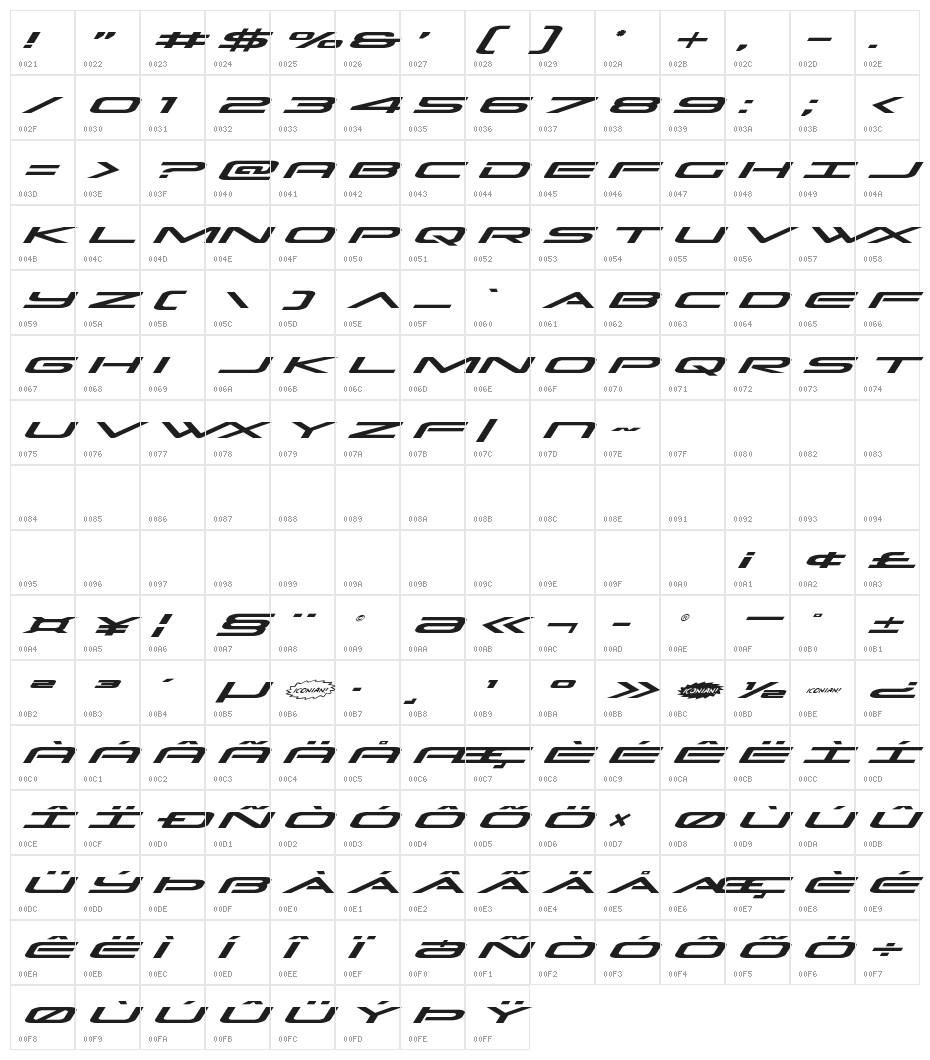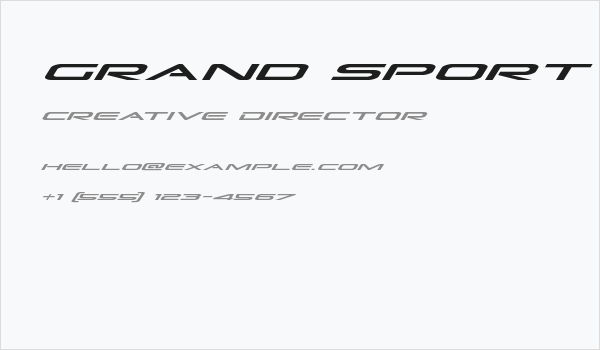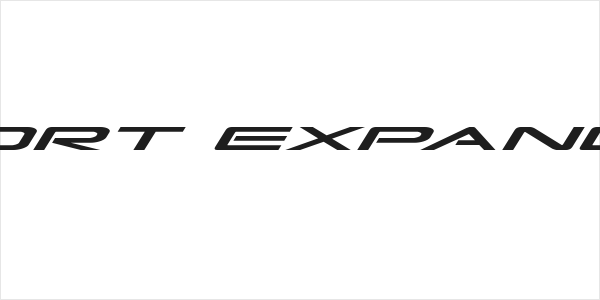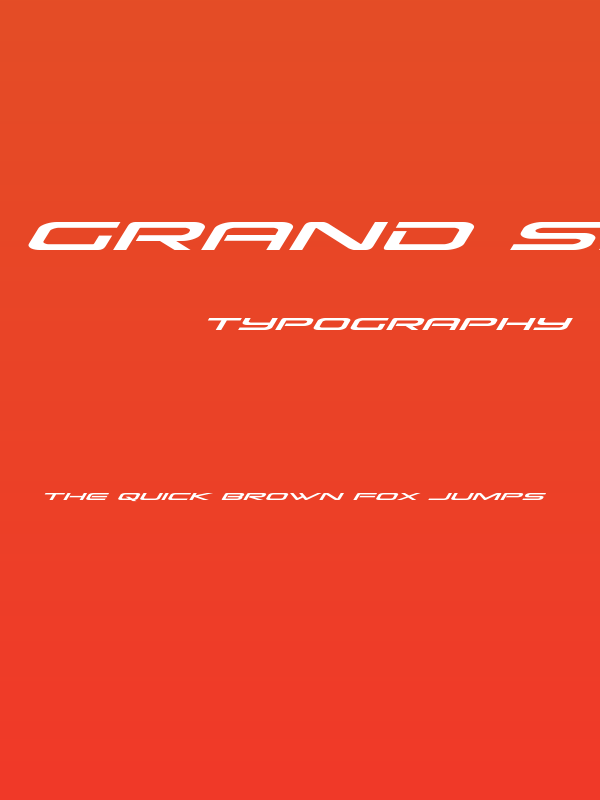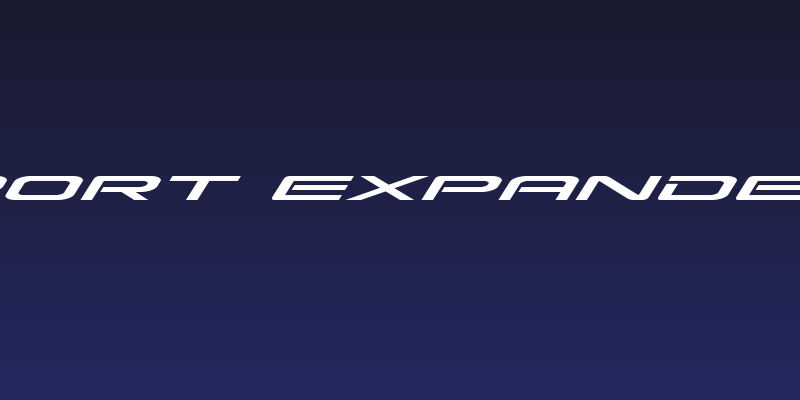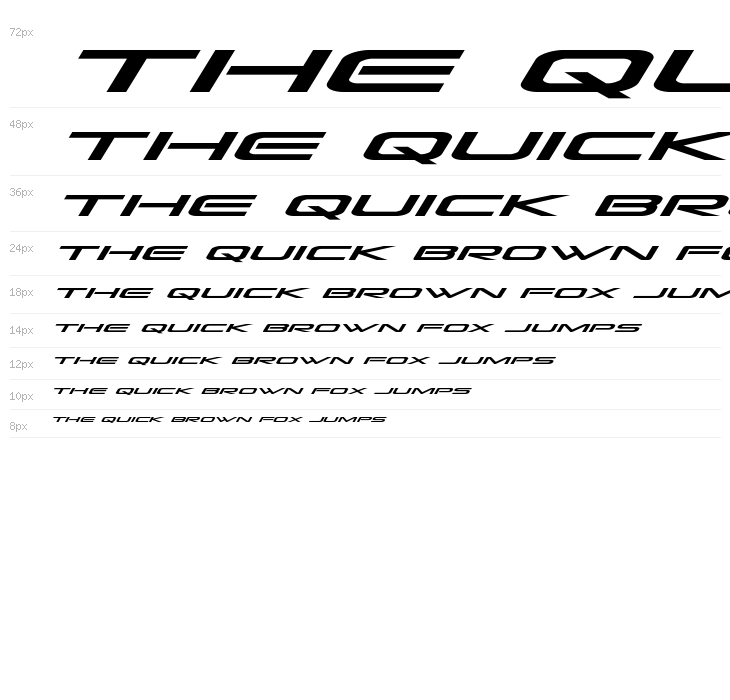
Grand Sport Expanded Italic Font
Grand Sport Expanded Italic Description
This font exhibits a sleek, modern design with an italicized and expanded style, giving it a dynamic and sporty appearance. The characters are elongated and slightly slanted, enhancing the sense of motion and speed. The strokes are consistent in thickness, providing a uniform look across all characters. The font's expanded width allows for excellent readability, making it suitable for various display purposes. Its geometric shapes and clean lines contribute to a futuristic aesthetic, ideal for projects that require a contemporary and energetic vibe.
| Use Case | Headlines, Logos, Display text |
| Proposed Projects | Ideal for automotive branding, sports event posters, futuristic designs, and dynamic advertising campaigns. |